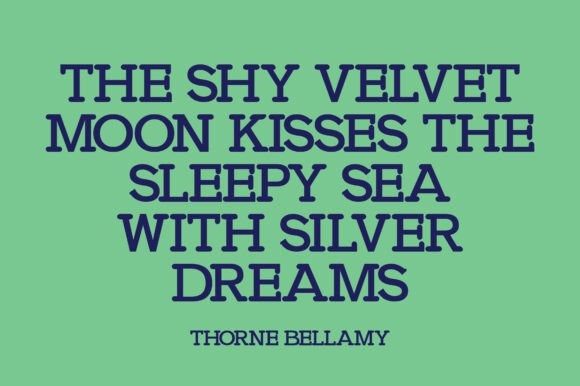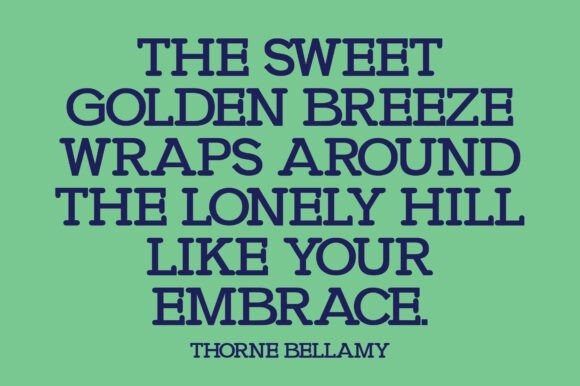
Virena Font
Virena Font is a minimalist and elegant slab serif font that makes a bold yet refined statement.With its strong structure, smooth curves, and timeless design, it’s ideal for branding, editorial use, headers, logos, and professional designs.
Available in regular and italic styles with small caps and multilingual support, Virena balances classic charm with a modern edge. Perfect for clean, high-impact typography that leaves a lasting impression—this font is a staple for designers who value clarity and sophistication.